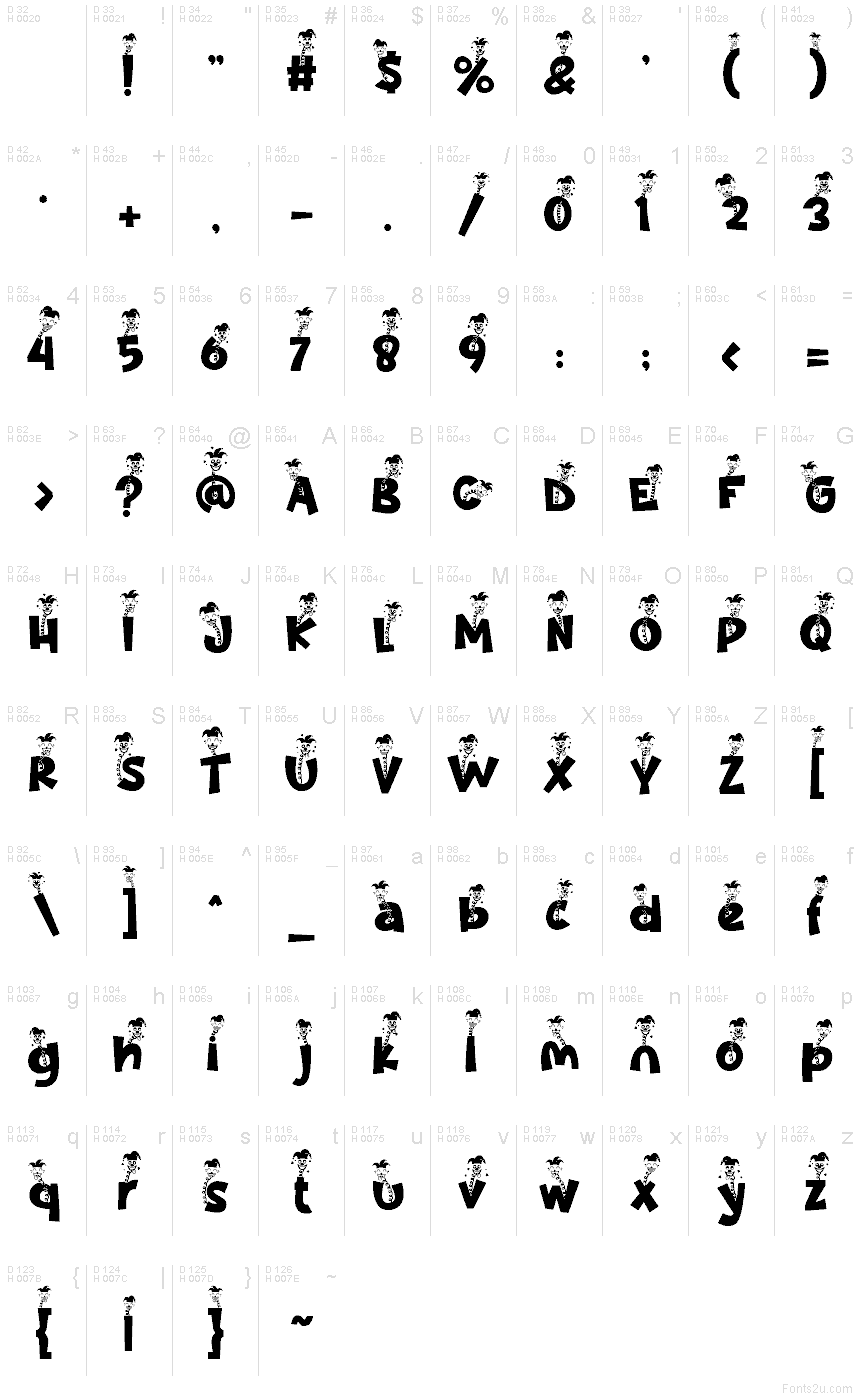
Night Clown Surprise
Night Clown Surprise font by PutraCetol Studio is a bold decorative display font with an eccentric theatrical theme. This grunge and whimsical letter design stands out on entertainment-themed branding projects where it astonishes the audience and keep them attracted.
This free decorative font is perfect for logos, labels, product packaging, posters, movie titles, album covers, magazines, books covers/titles. It is also great for stationery items (labels/packaging), invitations, social media posts (headers/banners), and more.